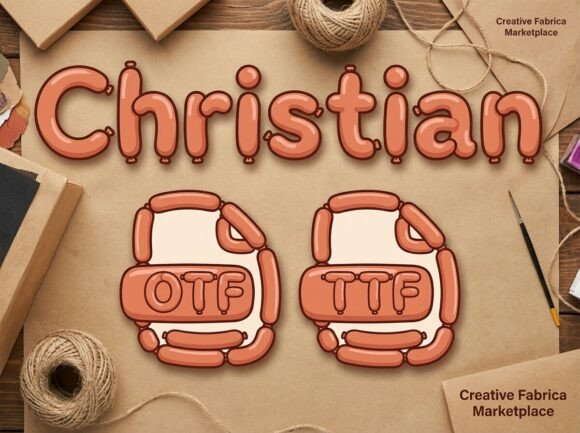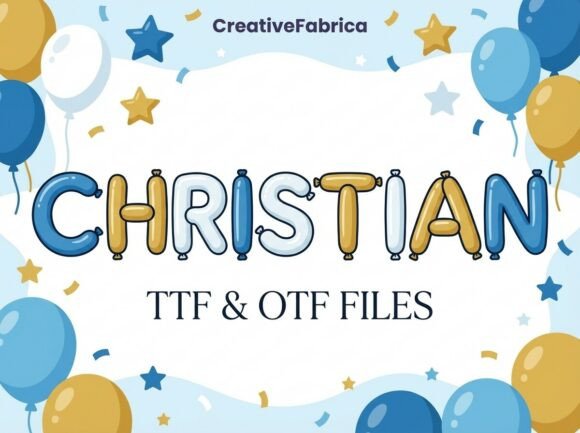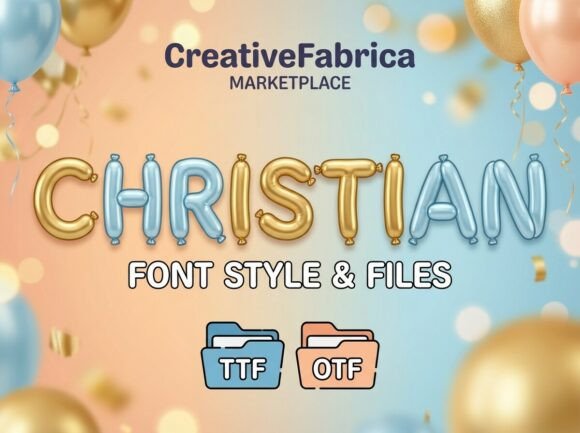
Introducing Christian: The Playful Sausage Link Font
Are you looking for a font that’s sure to add a dash of humor and whimsy to your design projects? Look no further than Christian, a one-of-a-kind display font where every letter is crafted from juicy sausage links. This unique font is perfect for designers and crafters who want to add a touch of playfulness to their work, and it’s sure to be a “well-done” choice for stand-out typography.
The Inspiration Behind Christian
Christian is a font that’s all about fun and creativity. The idea behind it is simple: what if you could turn sausage links into letters? The result is a font that’s both humorous and eye-catching, with plump, rounded forms and realistic tied-off ends that will make your designs stand out from the crowd.
Perfect for Food-Focused Designs
Christian is a font that’s specifically designed with food-focused projects in mind. Whether you’re creating a logo for a BBQ restaurant, designing invitations for a summer cookout, or branding a butcher shop, this font is the perfect choice. The sausage link design is sure to make people smile, and it’s a great way to add some personality to your designs.
Key Features of Christian
- Unique Design: Every letter is crafted from juicy sausage links, giving your designs a humorous and eye-catching touch.
- Plump and Rounded Forms: The font features plump, rounded forms that are sure to add a touch of playfulness to your designs.
- Realistic Tied-Off Ends: The realistic tied-off ends add a level of detail and realism to the font, making it look like you’re serving up a plate of fresh sausages.
- Perfect for Display Text: Christian is a display font that’s specifically designed to make a statement. It’s perfect for headings, titles, and other display text.
How to Use Christian in Your Designs
Christian is a versatile font that can be used in a variety of design projects. Here are a few ideas to get you started:
- BBQ Restaurant Logos: Use Christian to create a logo that’s sure to stand out from the crowd. The sausage link design is a perfect fit for BBQ restaurants, and it’s sure to make people smile.
- Summer Cookout Invitations: Add a touch of whimsy to your summer cookout invitations with Christian. The font is perfect for creating fun and playful invitations that will get your guests excited for the party.
- Butcher Shop Branding: Use Christian to create branding materials for a butcher shop or meat market. The font is a great way to add some personality to your designs, and it’s sure to make your brand stand out.
Tips for Getting the Most Out of Christian2>
Here are a few tips for getting the most out of Christian:
- Use it in Large Sizes: Christian is a display font that’s designed to make a statement. Use it in large sizes to really make your designs pop.
- Experiment with Colors: The sausage link design looks great in a variety of colors. Experiment with different colors to find the one that works best for your design.
- Pair it with Other Fonts: Christian is a unique font that’s sure to stand out on its own. Pair it with other fonts to create a look that’s both playful and sophisticated.
Christian is a one-of-a-kind font that’s sure to add a touch of humor and whimsy to your design projects. With its unique sausage link design, plump and rounded forms, and realistic tied-off ends, it’s the perfect choice for food-focused designs. Whether you’re creating a logo for a BBQ restaurant, designing invitations for a summer cookout, or branding a butcher shop, Christian is a font that’s sure to make your designs stand out from the crowd.